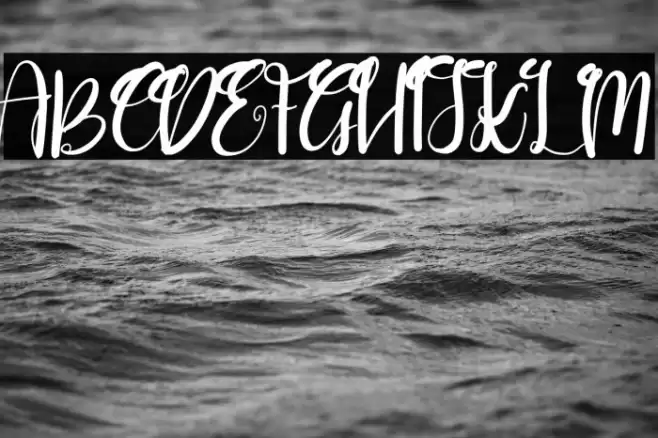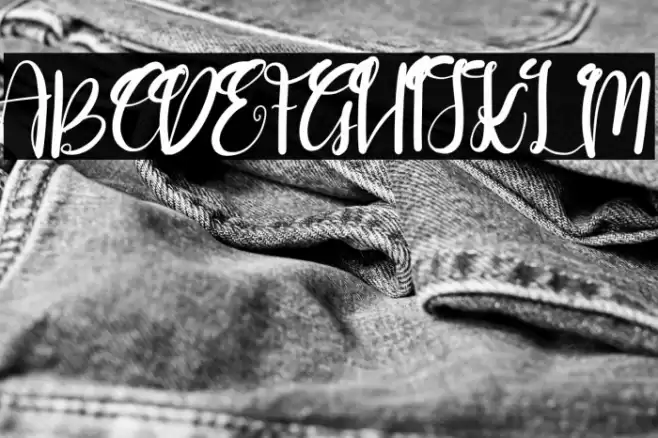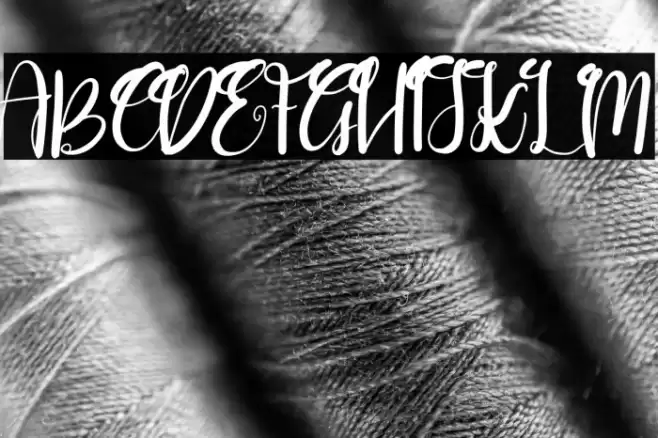
Goushy Script Font
Goushy Script Description
This font features a lively and expressive script style, characterized by its flowing, interconnected letters and elegant swashes. The uppercase letters are ornate, with distinctive loops and flourishes that add a touch of sophistication. The lowercase letters maintain a consistent fluidity, enhancing readability while preserving the artistic flair. Numbers and special characters are crafted with the same attention to detail, ensuring a cohesive look across all text elements. The overall design exudes a sense of creativity and elegance, making it suitable for projects that require a personal and artistic touch.
A lively and expressive script font with elegant swashes and interconnected letters from Uncategorized fonts.
- Font: Goushy Script
- Proposed Projects: Ideal for wedding invitations, greeting cards, branding, and artistic projects that require a personal touch.
- Use Case: Logos, Invitations, Artistic projects